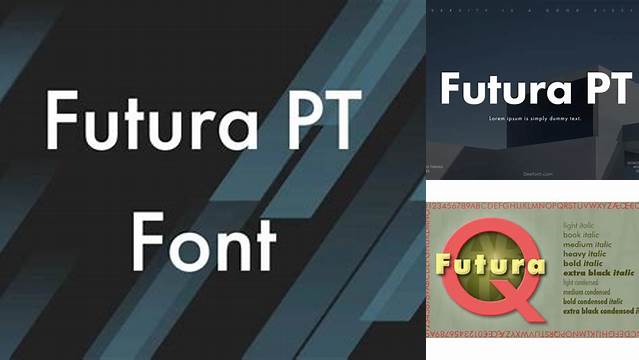
Introduction to Futura PT and Its Allure
Futura PT free font is more than just a typeface; it's a design icon. Guys, this font has a rich history and a timeless appeal that makes it a favorite among designers worldwide. Created in 1927 by Paul Renner, Futura was inspired by the Bauhaus school of design, embracing geometric forms and clean lines. The result? A font that's both modern and elegant. Its simplicity and versatility have made it a staple for everything from corporate branding to artistic projects. When we talk about Futura PT, we're specifically referring to the version that includes the Cyrillic and other character sets. This expanded set allows for broader linguistic use, making it a go-to choice for global design projects. Futura PT is a sans-serif typeface, meaning it lacks the small strokes (serifs) found at the end of letters. This design choice gives it a clean and uncluttered appearance, perfect for both headlines and body text. You can see this font on many brands, from car companies to cosmetics brands. It has a timeless look that translates across media. Futura PT's legibility and aesthetic appeal make it a powerful tool in any designer's arsenal. This font's adaptability is key to its lasting popularity. Its geometric shapes and clean design work well in various contexts, from print to digital media. Futura PT free font isn't just a font; it's a statement. It embodies modernity, precision, and sophistication. The ability to download it for free makes it an even more attractive option for designers on a budget. It's an open-source font with a versatile aesthetic. Think about its design with simple geometric shapes such as circles, triangles and squares. The elegance of the font is due to the simplicity, clarity and efficiency of the design. This clarity makes the font easy to read, providing a comfortable experience for the reader. This is a valuable asset. It's simple yet attractive, a combination that is very desirable in the world of design and typography. It's a font that embodies the essence of modern design. The fact that it's free makes it accessible. That's what makes it very popular. It is a font that is often associated with the Bauhaus movement, known for its focus on functionality and modernism. This connection gives Futura a unique historical and aesthetic value. When you choose Futura, you're not just selecting a font, you're embracing a legacy of design innovation. The choice of Futura PT signals a commitment to clean, modern design.
The Geometric Aesthetics of Futura PT
The Futura PT free font is celebrated for its geometric aesthetics. The core of its design lies in its geometric shapes, which are clearly evident in the letterforms. Each character is crafted from basic shapes such as circles, triangles, and squares. This use of geometry gives Futura a unique and timeless quality. This geometric foundation provides a sense of order and harmony, making it visually appealing and easy to read. The design emphasizes simplicity and precision, qualities that resonate with modern aesthetics. The shapes create a sense of visual consistency, allowing for a clear and uncluttered appearance. This is especially beneficial in conveying information quickly and effectively. The geometric design also contributes to Futura's versatility. It works well in a wide array of applications, from headings to body text, and from print to digital media. Its clean lines and balanced proportions make it suitable for both large and small sizes. The font’s ability to maintain its visual integrity across different scales is a testament to its well-thought-out design. This geometric approach enhances the overall visual impact, making it a reliable choice for designers seeking a modern and sophisticated look. The font is very readable. This design's aesthetic is also very versatile. It is often associated with the Bauhaus movement, characterized by its emphasis on functionality and modernism. These features make it a great choice.
Understanding the Basic Shapes in Futura PT
The Futura PT free font's geometric beauty stems from its reliance on basic shapes. The letterforms are constructed using circles, triangles, and squares. These simple shapes form the basis of each character. The letter 'O,' for example, is a perfect circle, while the 'A' is based on a triangle. This geometric precision contributes to Futura's clean and modern appearance. The design's simplicity ensures that the font is visually consistent and aesthetically pleasing. These shapes give it an elegant appearance, which allows for the readability. The foundation of the design contributes to the font's versatility. This is a great asset to any designer. This geometric foundation provides clarity and balance to the design, making it easy on the eyes. This is important for readability and user experience. The deliberate use of geometric shapes also provides a sense of harmony, contributing to its appeal. This gives it a unique aesthetic value, and ensures that the font remains readable in various contexts. It's a timeless font. This simplicity allows it to be adapted for different sizes.
Comparing Futura PT to Other Geometric Typefaces
When we talk about the Futura PT free font, it's important to understand how it stacks up against other geometric typefaces. There are a few other great ones. One of the most important is Avant Garde Gothic. It shares some similarities with Futura, like clean lines and geometric forms, but it has its own personality. Avant Garde Gothic tends to be more playful and stylized, while Futura leans towards a more neutral, timeless aesthetic. Another interesting comparison is with Helvetica. While not strictly geometric, Helvetica shares Futura's sans-serif nature. Helvetica is often considered a more utilitarian font, while Futura offers a greater degree of elegance and visual interest. Both fonts are used extensively in design, but Futura often carries a connotation of sophistication and modernity. A good comparison is with geometric sans-serif fonts like Kabel. Kabel, designed in the 1920s, is another typeface with a geometric basis. While sharing common ground with Futura, Kabel tends to have a more rounded and warmer feel. The font has a lot of similarities. Futura often has a slightly more precise and streamlined design. Each geometric typeface has its own unique character and historical context. Understanding these differences is key when selecting the right font for a project. The choice depends on the specific design requirements and the desired aesthetic. The comparison highlights the unique qualities of each font, helping you make an informed decision. These nuances influence how the font is perceived and used. Each typeface carries its own visual and emotional impact.